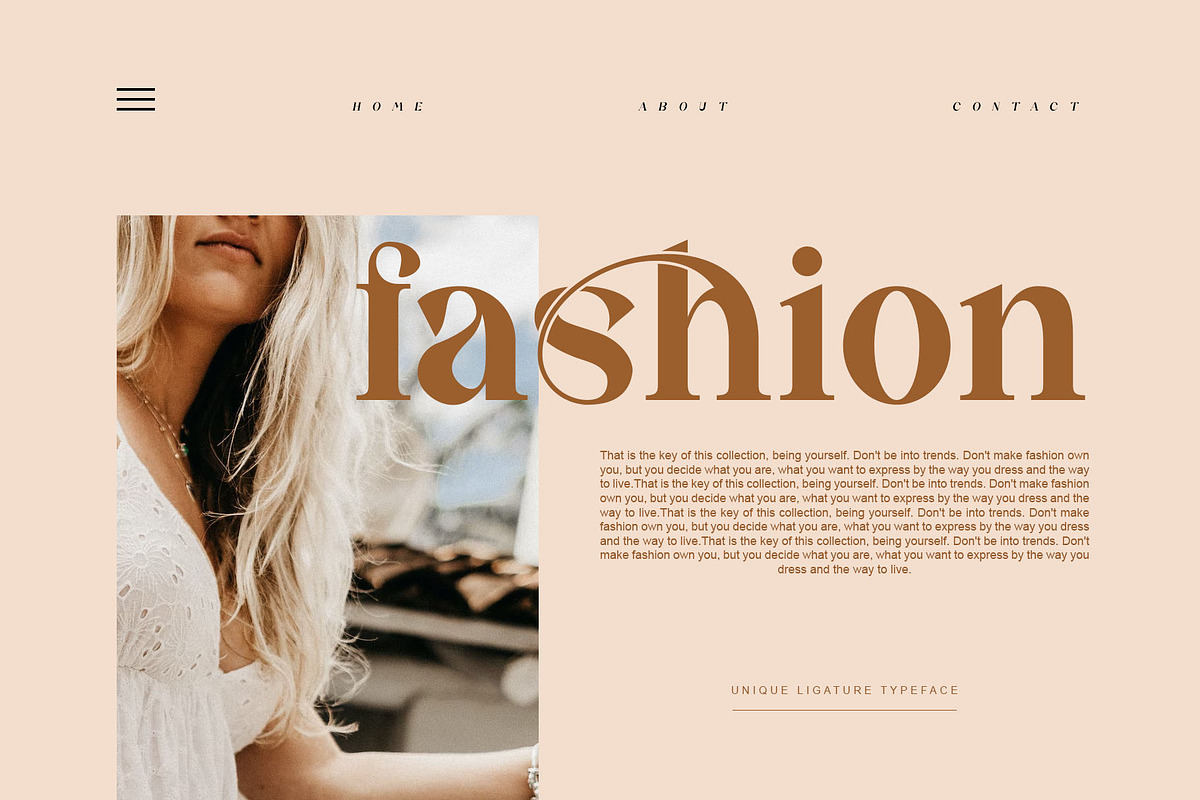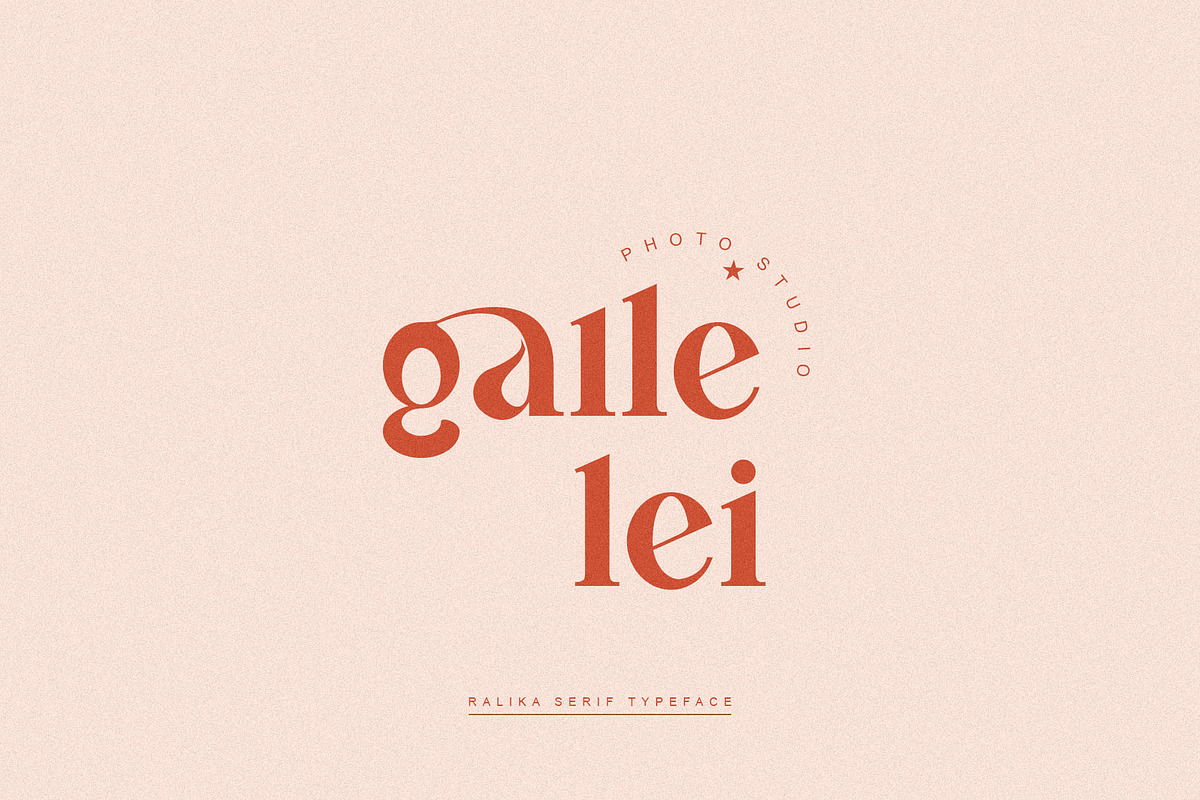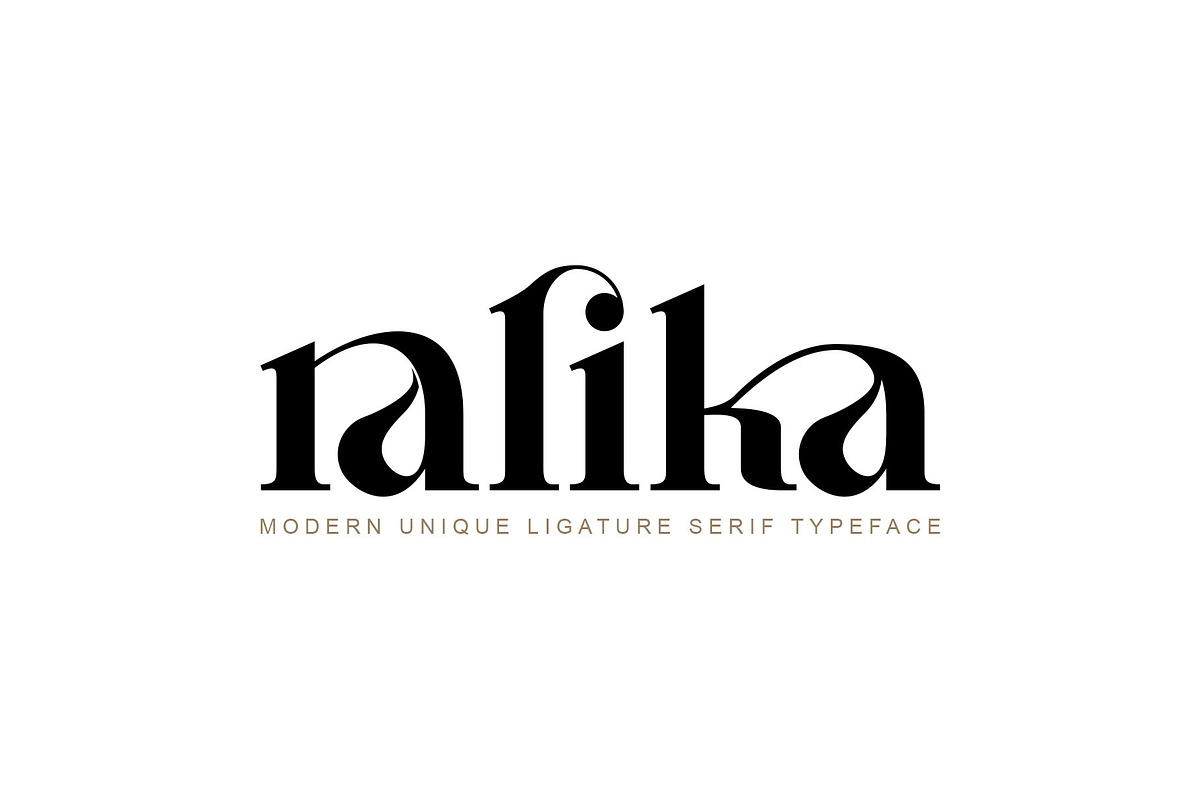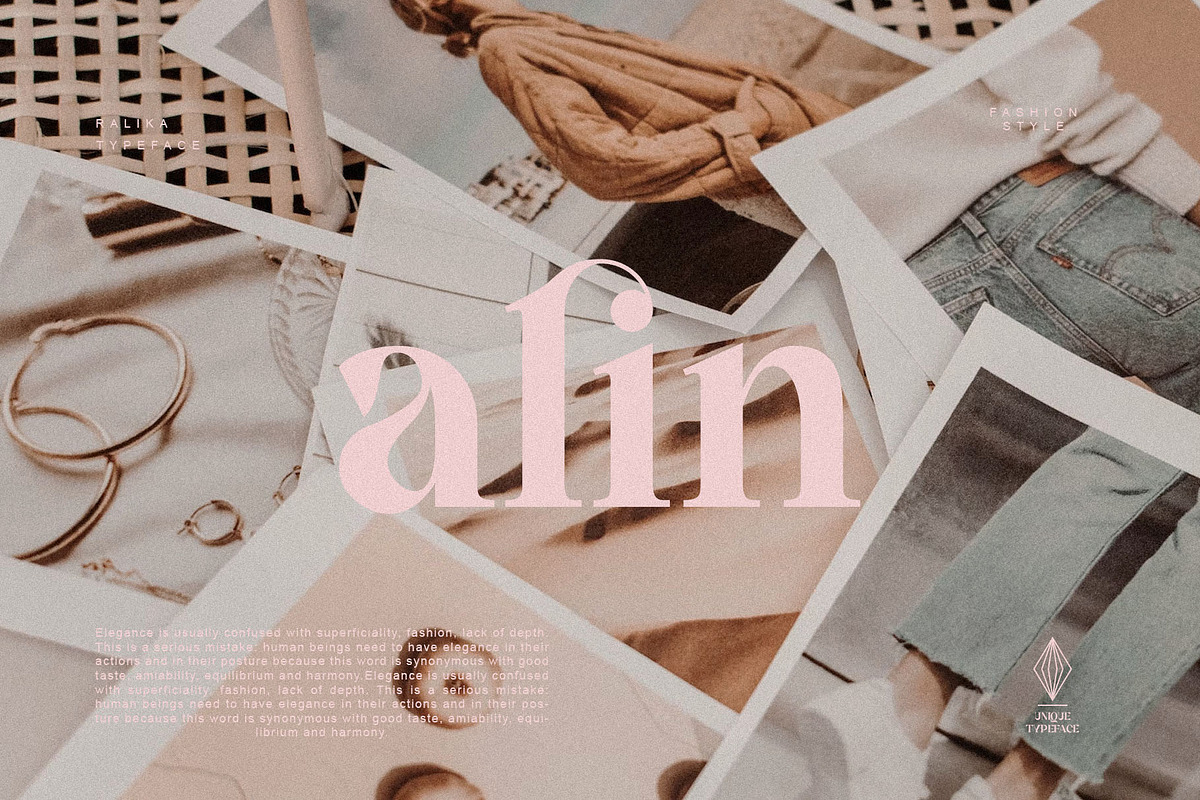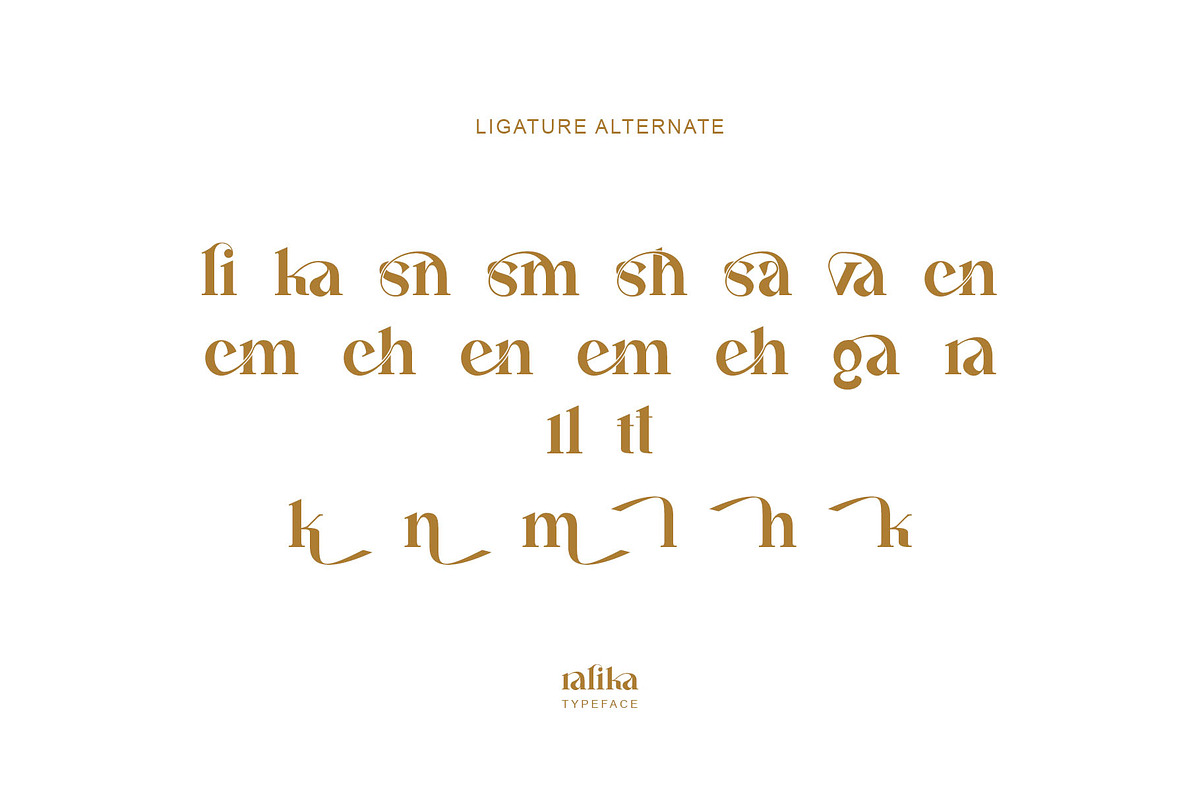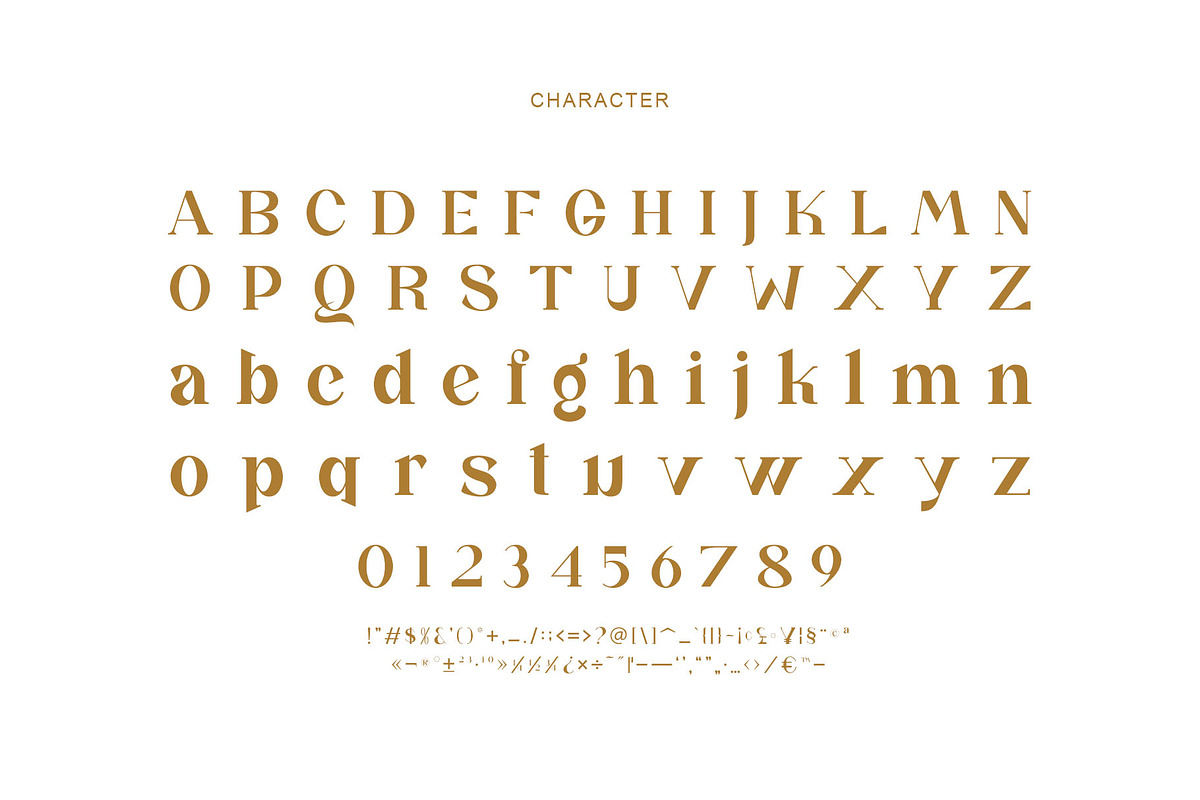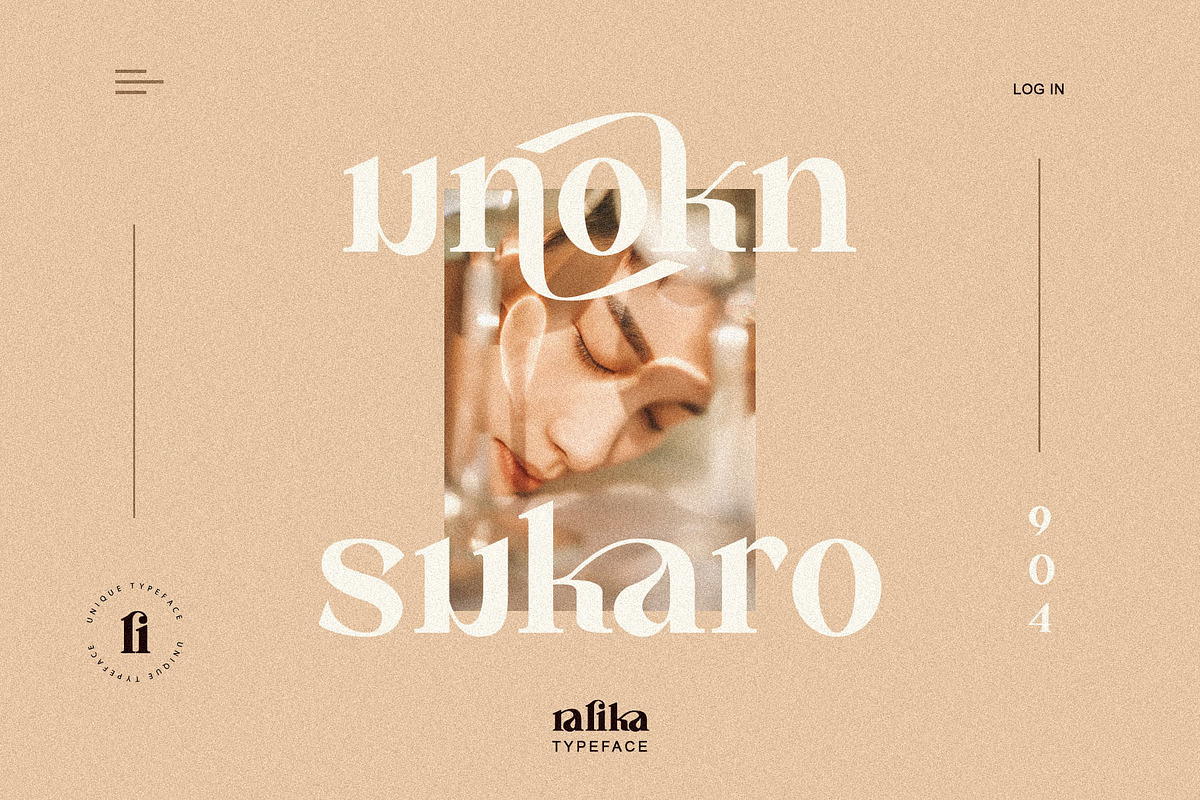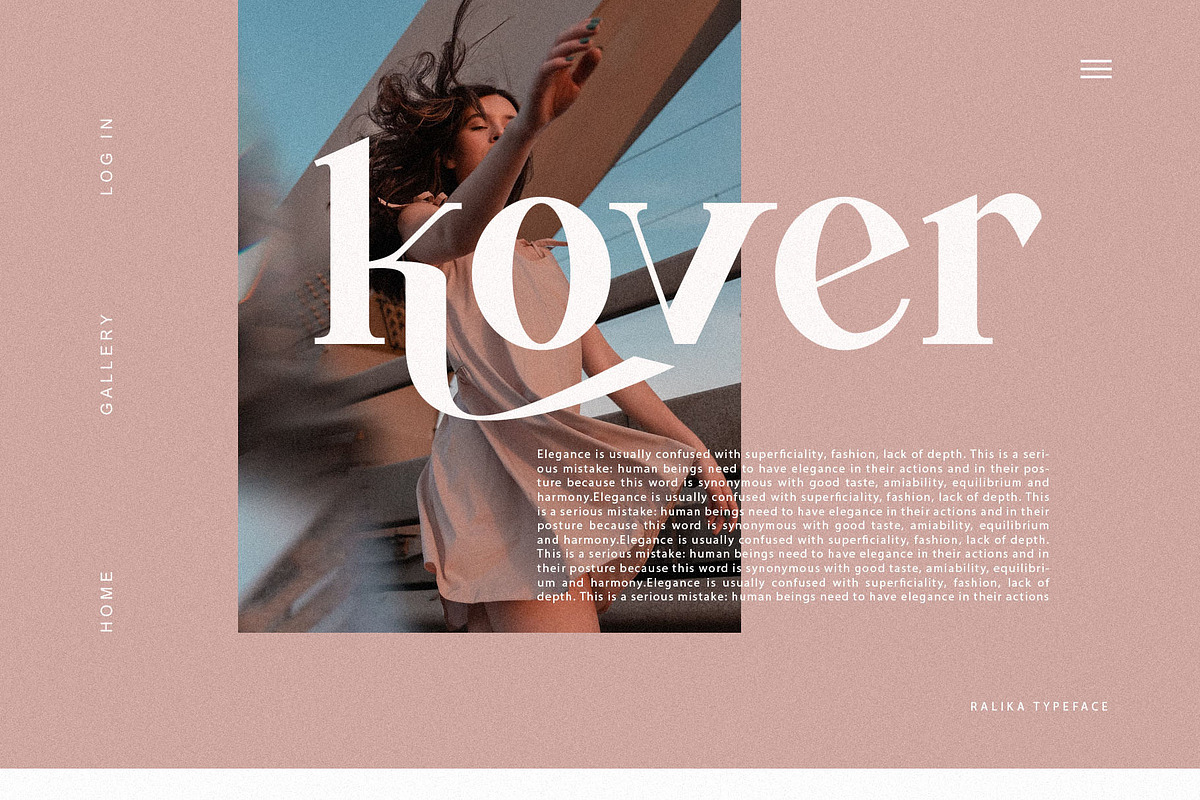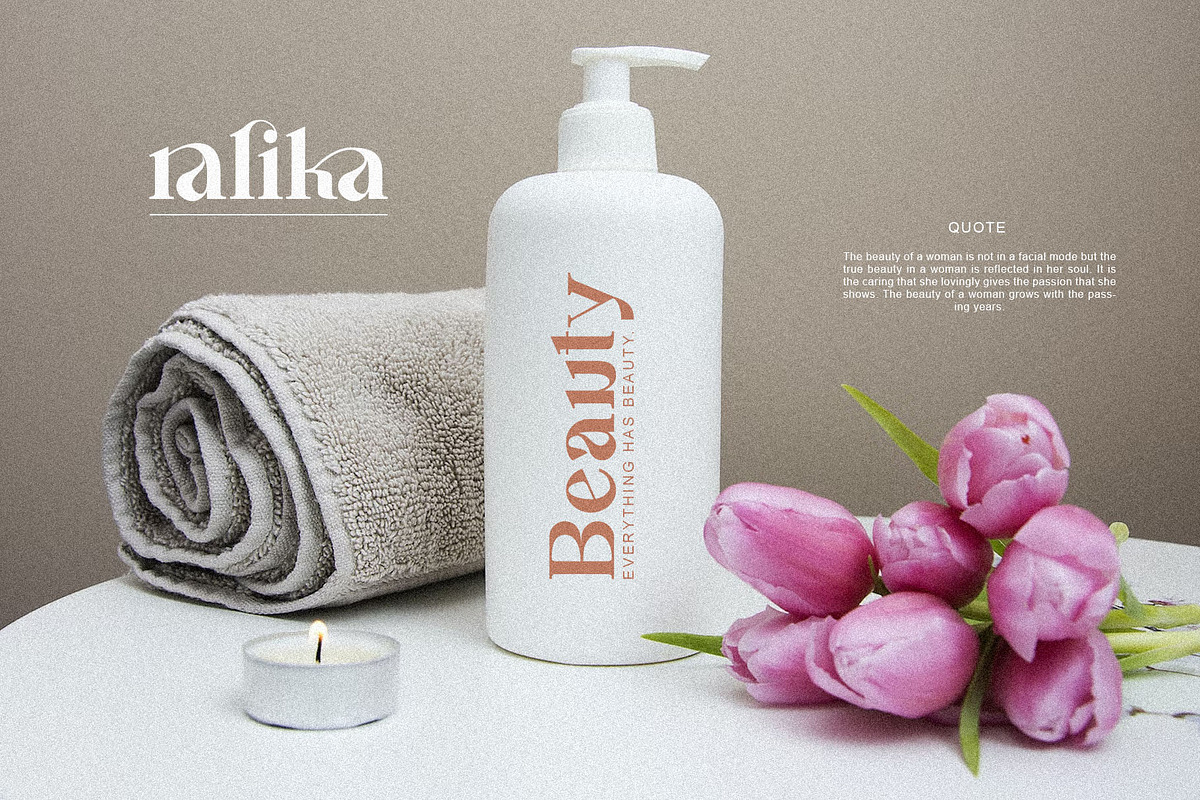
Ralika Ligature Serif Typeface
Ralika is a elegant modern and classy serif typeface – This font is both modern and nostalgic and works great for logos, magazine, social media. Already matched up and ready to be used together for your next design! For those of you who are needing a touch of elegant, stylish, classy, chic and modernity for your designs, this font was created for you!
Ralika was built with OpenType features and includes ligatures, numbers, punctuation, and it also supports other languages.